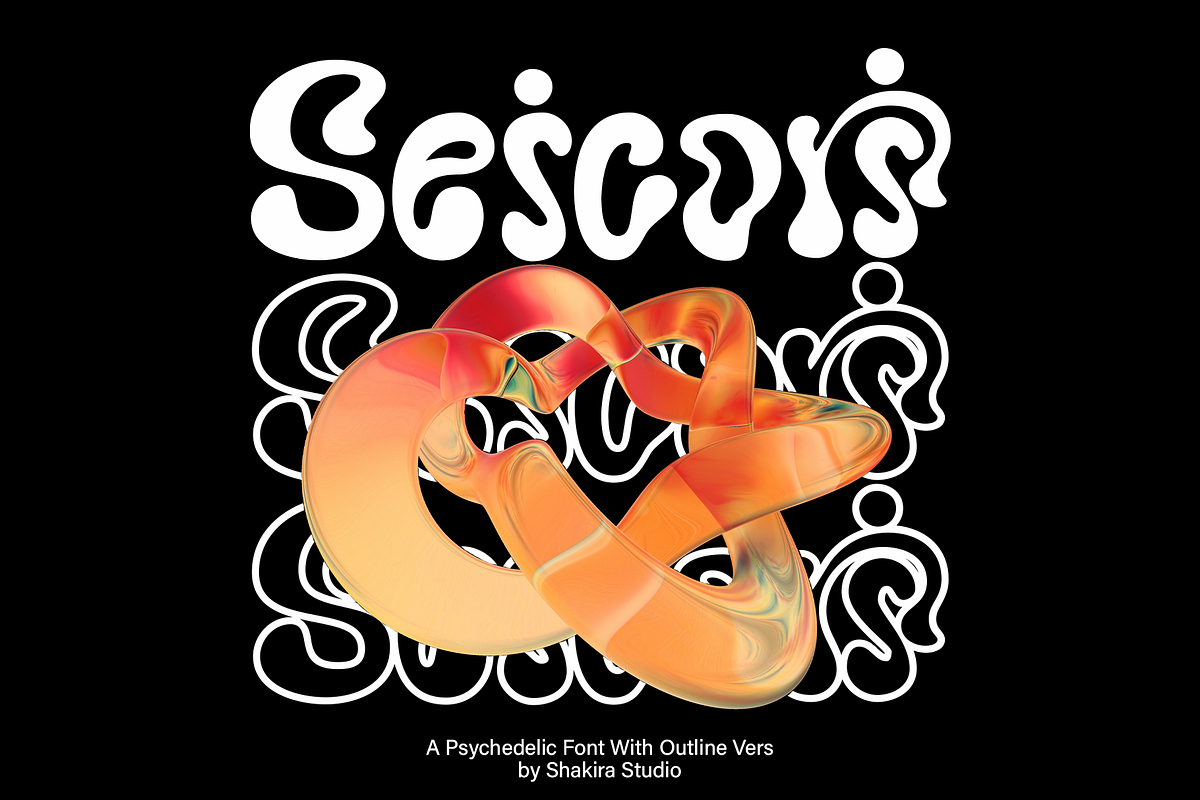
Seicori - Psychedelic Font Display Free Download
Seicori - Psychedelic Font Display Free Download is a bold, vibrant, and groovy typeface inspired by the colorful and trippy designs of the 60s and 70s. With its flowing, distorted letterforms and bold curves, this font is perfect for psychedelic-themed designs, posters, album covers, logos, and anything that needs a retro, high-energy vibe.
Seicori - Psychedelic Font Display Free Download captures the essence of the counterculture movement with a funky, organic look that immediately grabs attention. Whether you're working on a music project, an art event, or a vintage-inspired brand, this font adds a dynamic, playful flair.